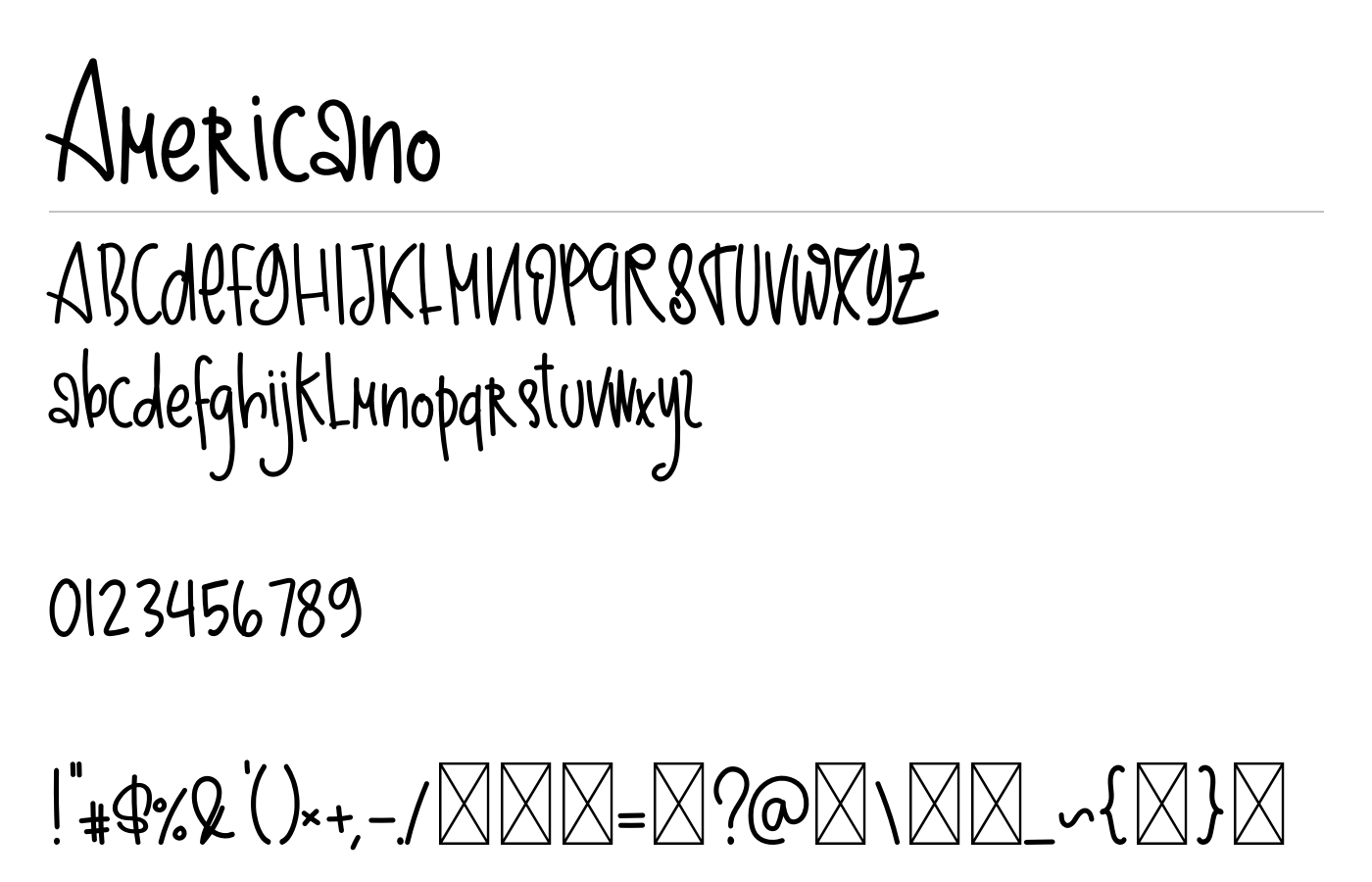
Americano is a playful and casual handwritten sans serif font with a tall, narrow structure and smooth, rounded strokes that give it a friendly and approachable vibe. Its irregular letterforms and lively shapes make it ideal for creative projects, informal branding, children's materials, and any design needing a relaxed, personal touch. This font works well in headlines, logos, and packaging where a lighthearted and unique personality is desired.
Americano Font
About Americano Font